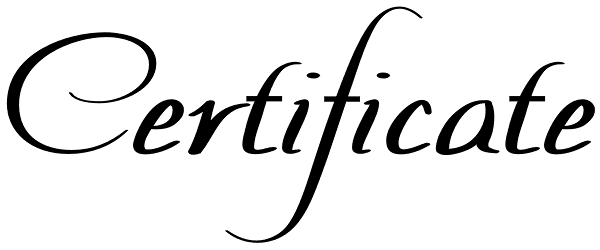
Certificate
Elegant, fluid and romantic are but a few of the words that describe this beautiful font. Certificate is a perfect choice for awards, wedding invitations, greeting cards - in fact any products for which a sophisticated, contemporary yet formal look...